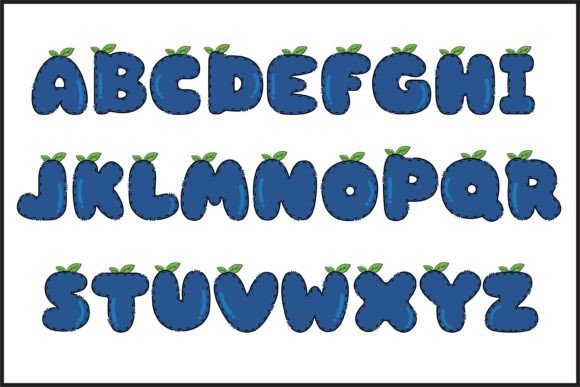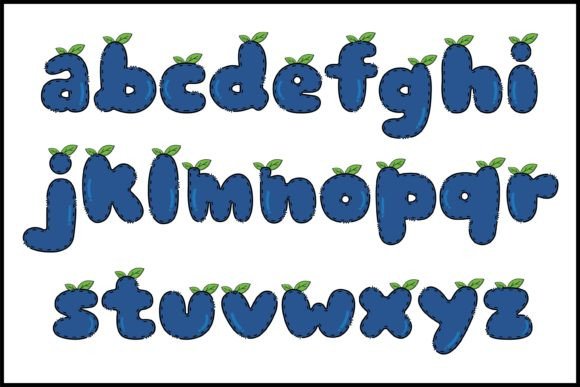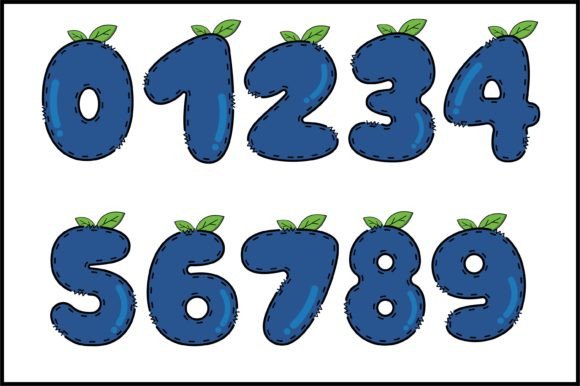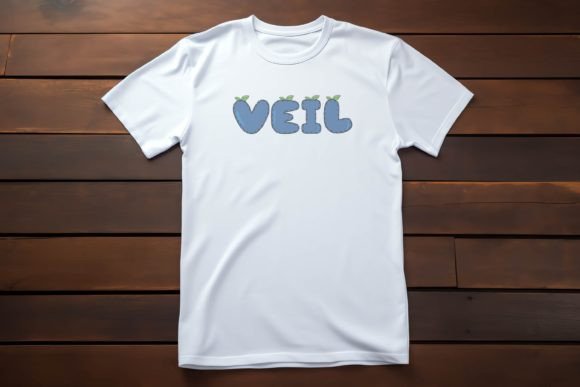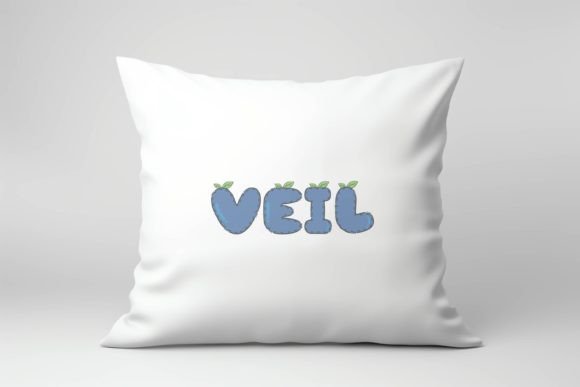
Introducing Blueberry Font: The Perfect Choice for Playful and Artistic Designs
Are you looking for a font that can add a touch of playfulness and artistic flair to your designs? Look no further than the Blueberry Font! This delightful font is perfect for designers and crafters who want to create engaging and visually appealing projects, such as children’s books, posters, invitations, greeting cards, and more.
The Characteristics of Blueberry Font
The Blueberry Font is a unique and charming font that is designed to convey a sense of whimsy and creativity. Its playful and artistic feel makes it an ideal choice for projects that require a fun and lively touch. The font is available in both black and color versions, making it versatile and suitable for a wide range of design applications.
Uses of Blueberry Font
These fonts are often used in designs that aim to convey a playful or artistic feel, such as:
- Children’s books: The Blueberry Font is perfect for creating engaging and interactive reading experiences for young audiences. Its whimsical and colorful design makes it easy to read and fun to look at.
- Posters: Add a playful touch to your posters with the Blueberry Font. Its artistic feel makes it perfect for creating eye-catching and memorable designs.
- Invitations: Create unique and personalized invitations for special occasions, such as birthday parties, baby showers, and weddings.
- Greeting cards: Add a touch of whimsy and personality to your greeting cards with the Blueberry Font.
Tips for Using Blueberry Font
Here are some tips for using the Blueberry Font in your designs:
- Use it for headlines and titles: The Blueberry Font is perfect for creating eye-catching headlines and titles that add a touch of playfulness to your designs.
- Pair it with other fonts: Experiment with pairing the Blueberry Font with other fonts to create unique and interesting combinations.
- Use it for creative projects: The Blueberry Font is perfect for creative projects, such as scrapbooking, card making, and other paper crafting projects.
The Blueberry Font is a unique and charming font that is perfect for designers and crafters who want to add a touch of playfulness and artistic flair to their designs. Its versatility and compatibility with various design programs make it an ideal choice for a wide range of projects. Whether you’re creating children’s books, posters, invitations, or greeting cards, the Blueberry Font is sure to bring a smile to your audience’s face.